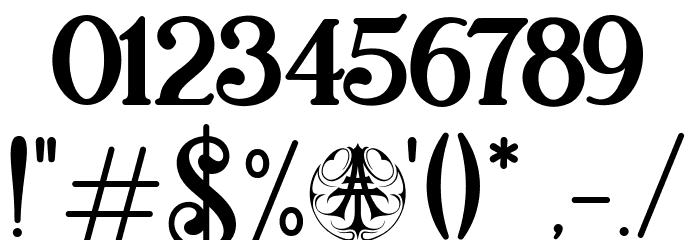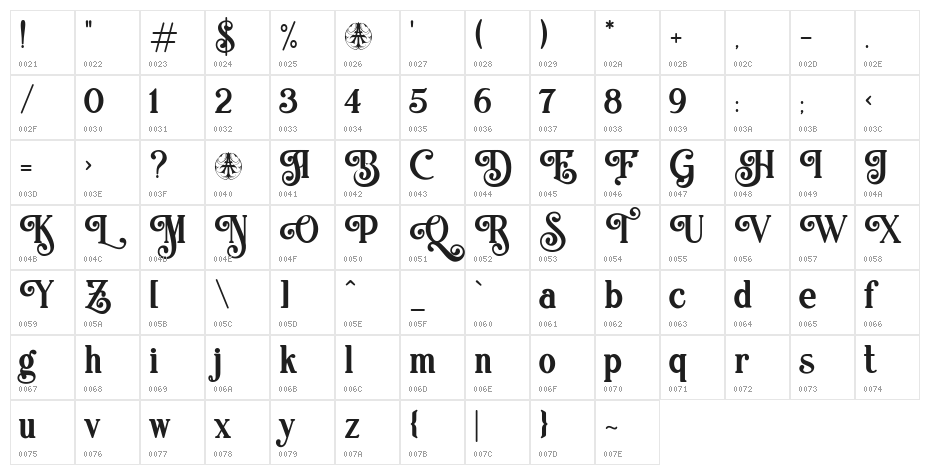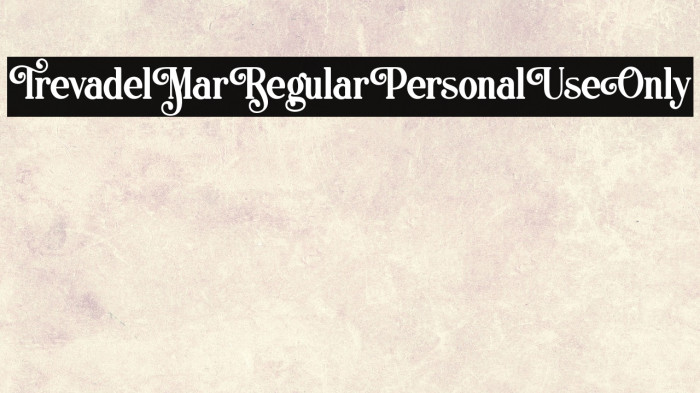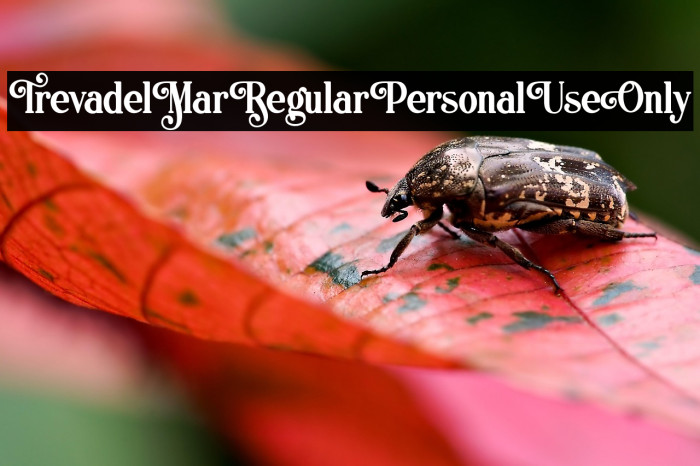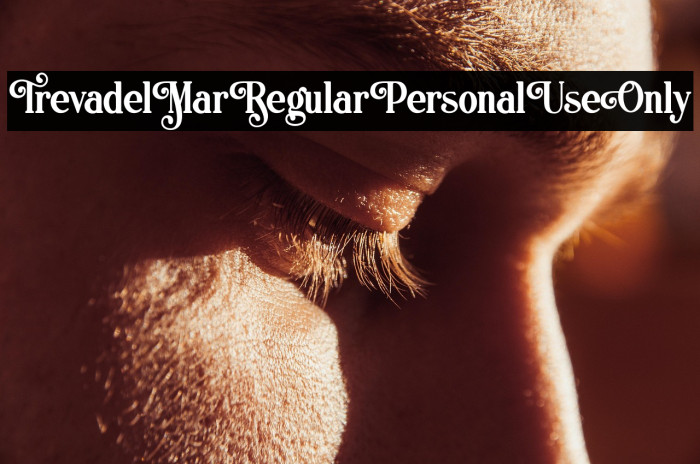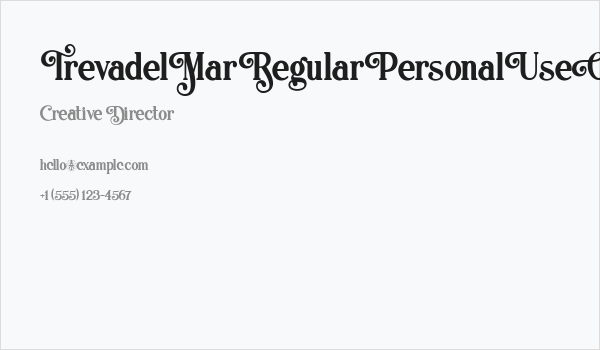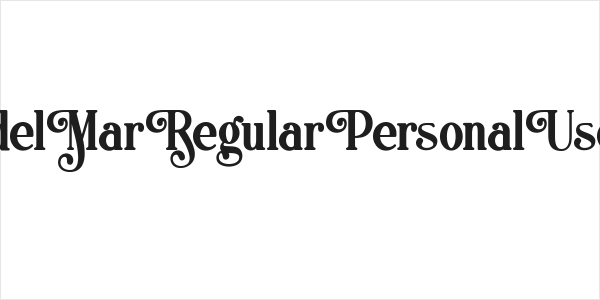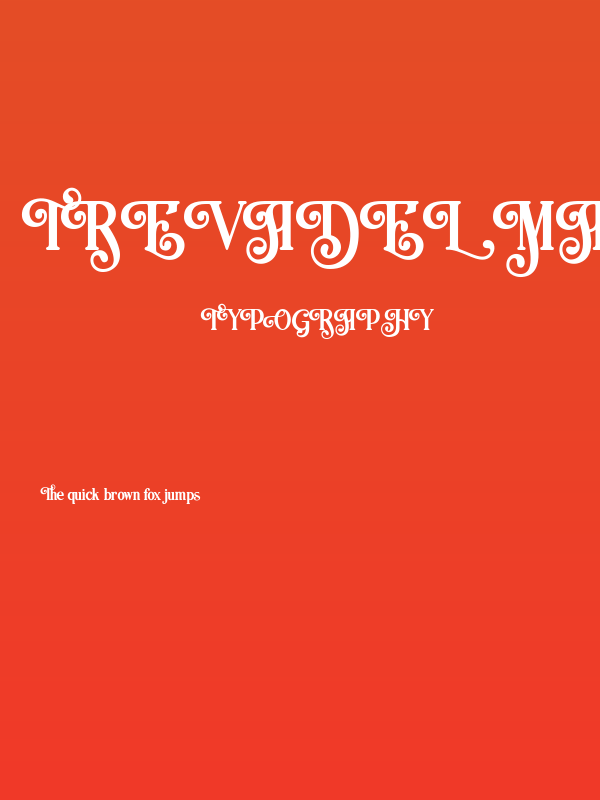
TrevadelMarRegularPersonalUseOnly Font
TrevadelMarRegularPersonalUseOnly Description
This font features a decorative and ornate style, characterized by its intricate swirls and embellishments on the uppercase letters. The lowercase letters maintain a bold and robust appearance, providing a striking contrast to the more elaborate uppercase. Numerals are clear and bold, ensuring readability while maintaining the overall aesthetic. The special characters are uniquely styled, with some incorporating intricate designs that add to the font's decorative nature. This font is ideal for projects that require a touch of elegance and sophistication, such as invitations, branding, or artistic designs.
| Use Case | Logos, Headlines, Artistic designs |
| Proposed Projects | Ideal for invitations, branding, artistic designs, and any project requiring elegance. |